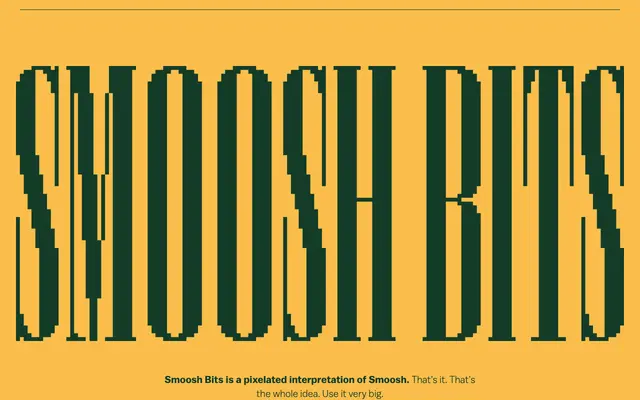
Smoosh Bits
Balto / Type Supply · 2021
A pixelated spin-off of Smoosh, currently a single Bold weight intended for large-scale display use.
Released as an R&D typeface in September 2021, it takes the underlying forms of Smoosh and renders them through a pixel grid. Only one weight exists at present, covering basic uppercase Latin, numerals and punctuation. The foundry acknowledges further weights are planned with no confirmed timeline.
A pixelated display face derived from Smoosh, designed for large-scale use. The bitmap grid construction and explicit instruction to use it very big place it firmly in the display category.